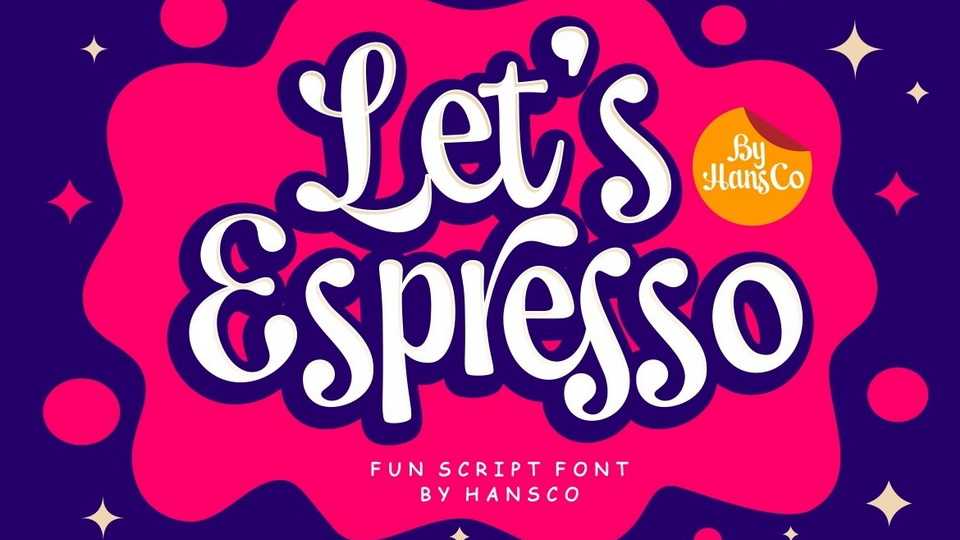
Download Lets Espresso font, a smooth and flowing handwritten typeface with a vintage feel, perfect for your favorite projects. Lets Espresso has incredibly distinct and timeless style and use it to create spectacular designs.
Designer: HansCo